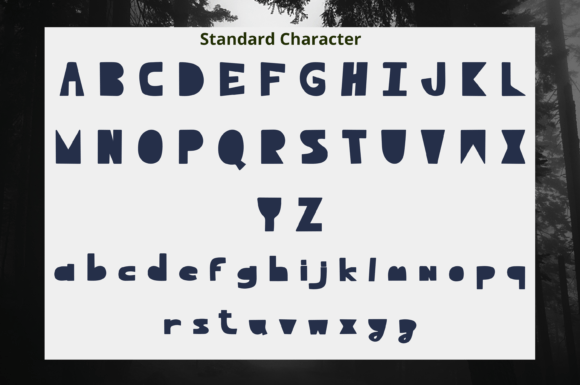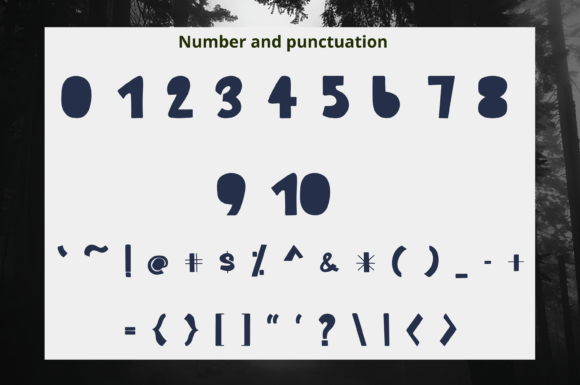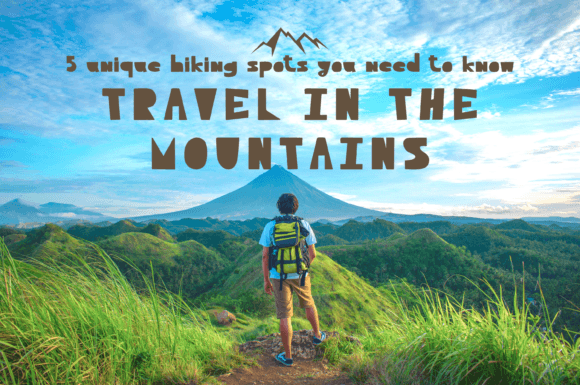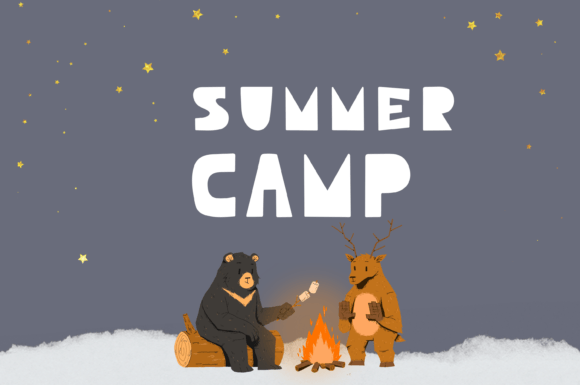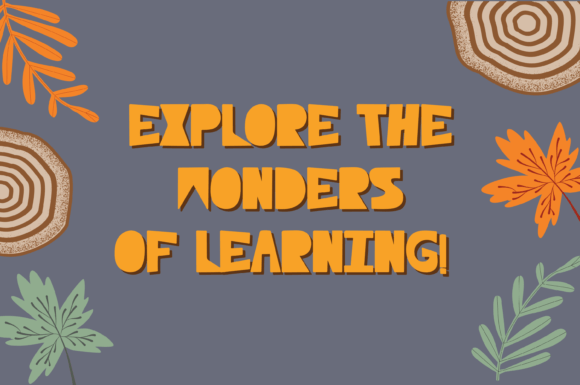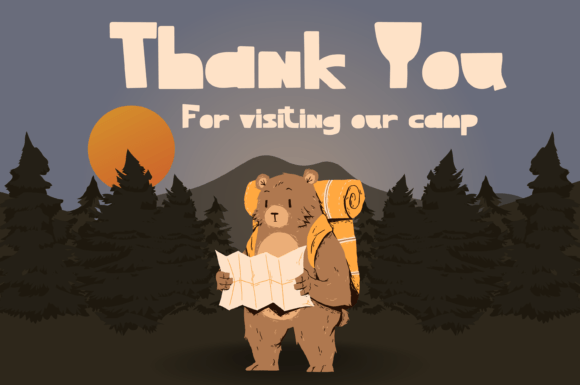
Camping Club Font: Elevate Your Designs with a Whimsical and Bold Display Font
Are you tired of using the same old fonts in your designs? Look no further than the Camping Club Font, a whimsical and bold display font that’s sure to make your creative projects stand out. With its unique and eye-catching style, this font is perfect for designers and crafters looking to add a touch of personality to their work.
What is Camping Club Font?
Camping Club Font is a display font that’s designed to make a statement. Its bold and whimsical style is perfect for headlines, titles, and other design elements that need to grab attention. The font features a unique blend of modern and vintage elements, giving it a distinctive look that’s both playful and sophisticated.
What Makes Camping Club Font So Versatile?
One of the things that sets Camping Club Font apart is its incredible versatility. This font can be matched to an incredibly large set of projects, from camping and outdoor-themed designs to more general creative projects. Whether you’re designing a logo, a poster, or a social media graphic, Camping Club Font is sure to add a touch of personality and whimsy to your work.
How Can I Use Camping Club Font in My Designs?
Camping Club Font can be used in a wide range of design projects, including:
- Logos and branding materials: The bold and eye-catching style of Camping Club Font makes it perfect for logos and branding materials that need to stand out.
- Posters and flyers: Whether you’re promoting a camping trip or a sale at your store, Camping Club Font is sure to grab attention and draw people in.
- Social media graphics: Add a touch of personality to your social media graphics with Camping Club Font, perfect for creating eye-catching Facebook posts, Instagram stories, and more.
- Signs and banners: The bold style of Camping Club Font makes it perfect for signs and banners that need to be visible from a distance.
Why Should I Choose Camping Club Font?
There are many reasons why Camping Club Font is a great choice for designers and crafters. Here are just a few:
- Unique and eye-catching style: Camping Club Font has a distinctive look that’s sure to make your designs stand out.
- Highly versatile: This font can be used in a wide range of design projects, from camping and outdoor-themed designs to more general creative projects.
Tips for Getting the Most Out of Camping Club Font
Here are a few tips for getting the most out of Camping Club Font:
- Experiment with different colors: Camping Club Font looks great in a wide range of colors, so don’t be afraid to experiment and find the perfect color for your design.
- Use it sparingly: While Camping Club Font is bold and eye-catching, it can be overwhelming if used too much. Use it sparingly to add emphasis and draw attention to key design elements.
- Pair it with other fonts: Camping Club Font pairs well with a wide range of other fonts, so don’t be afraid to experiment and find the perfect combination for your design.